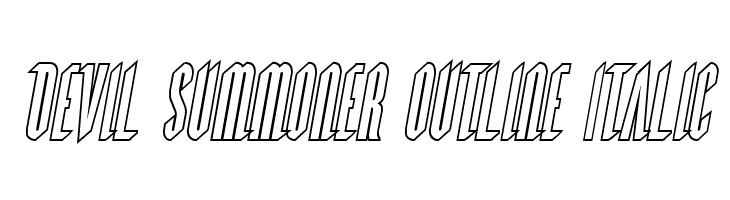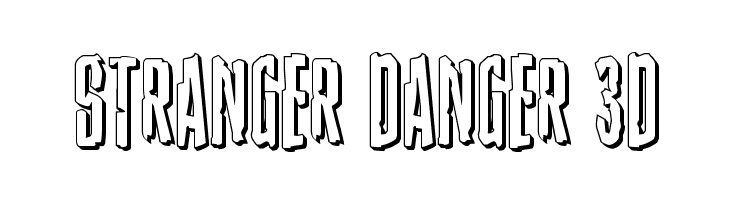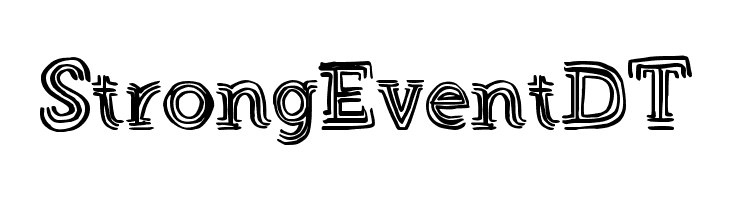
• Vindicator 3D Regular
A bold, 3D font with a strong, industrial aesthetic.
• Hip Pocket Expanded
A bold, playful font with exaggerated, rounded edges and a wide stance.
• Stranger Danger 3D
A bold, 3D decorative font with sharp edges and a shadow effect.
• Oceanic Drift 3D Italic
A bold, 3D italic font with a futuristic and dynamic style.
• Devil Summoner Outline Italic
Bold, italicized outline font with a dynamic and edgy style.
• Curely
A whimsical and playful font with curly embellishments and decorative flair.
• Slave only dreams to be king
A bold, grungy font with a ransom note style and high contrast.
• ModernismDisco
A bold, geometric font with a modern disco-inspired aesthetic.
• StrongEventDT
A bold, decorative font with a layered, dimensional style.
• Hussar Wojna3